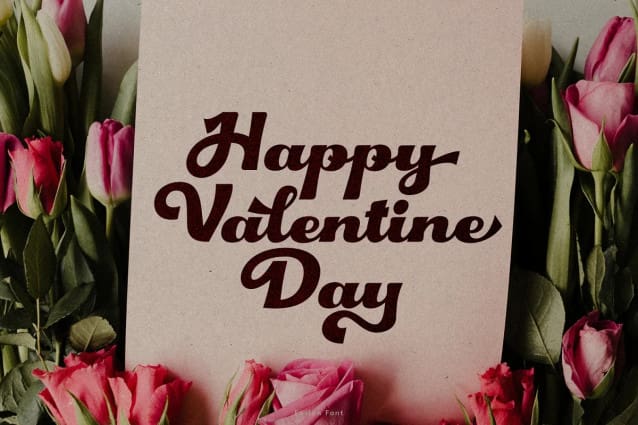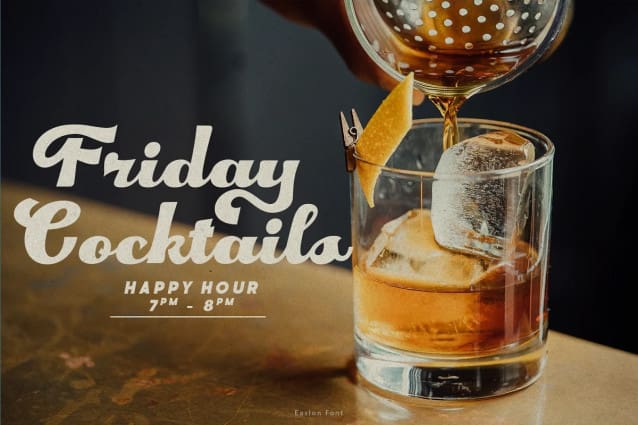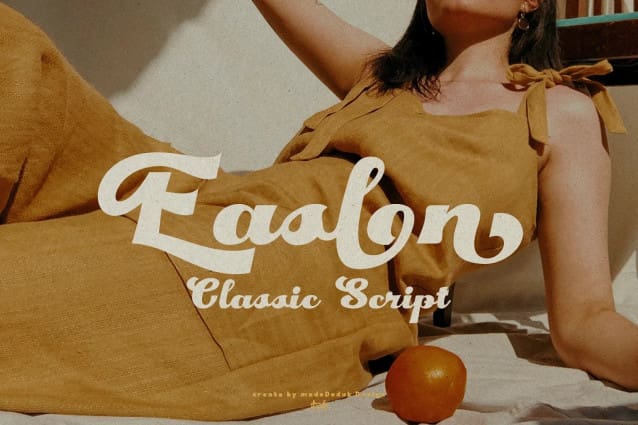
Easlon Retro Font
Easlon Retro Font, is a retro font come with 70’s retro style. You can explore and combine creating rhythm for comfortable reading. Retro and refined use this font for any branding, product packaging, invitation, quotes, headline, label, poster, logo etc.